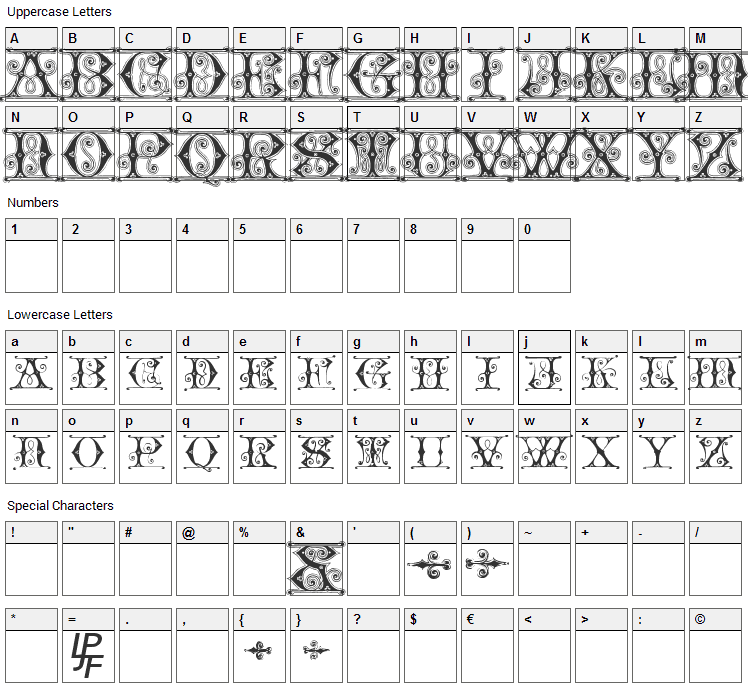
Blavicke Font
Font Name:Blavicke
Developer:Paul Lloyd
Category:Fancy > Initials
Blavicke is.... High Victorian 'Gothick' revival made into a font! Just a bit of fun really :)